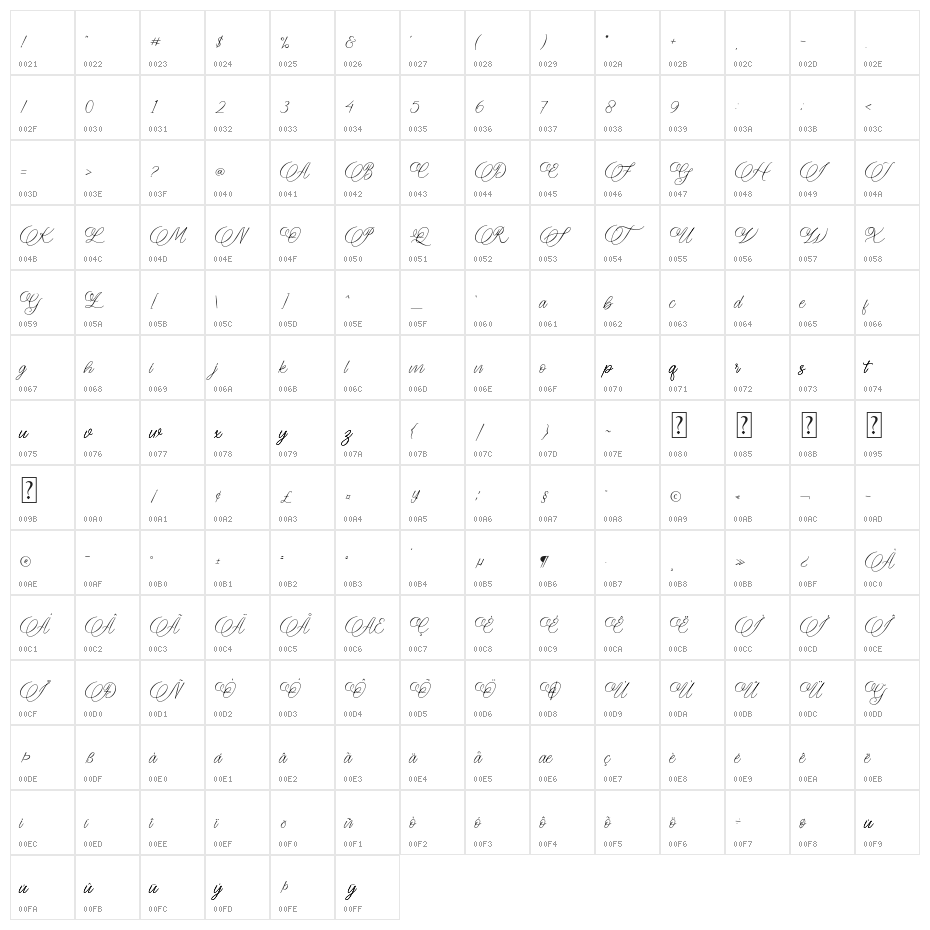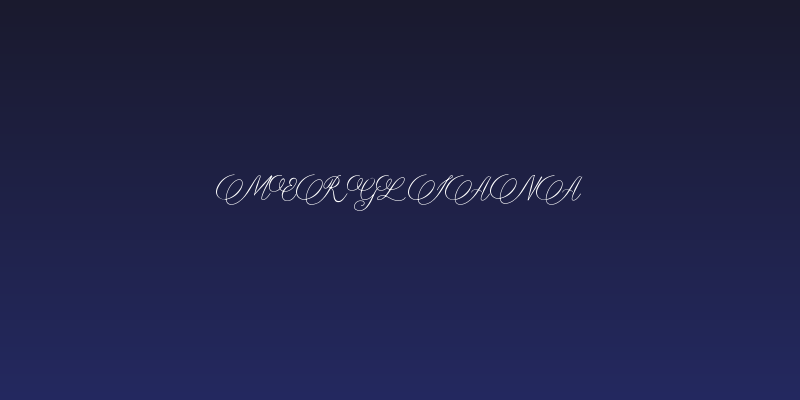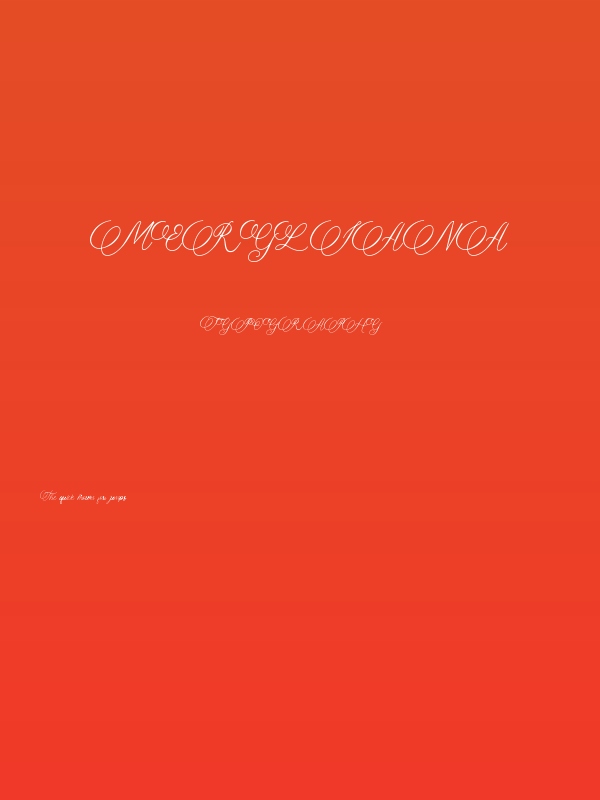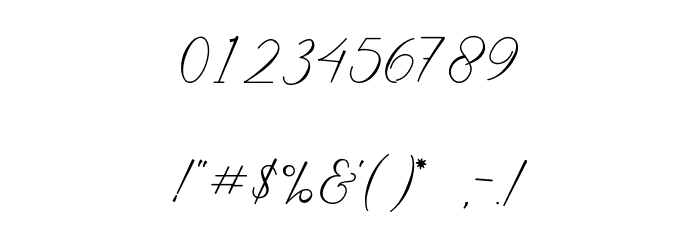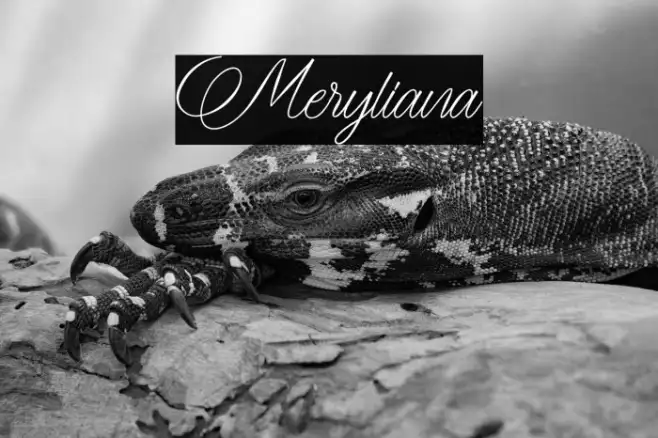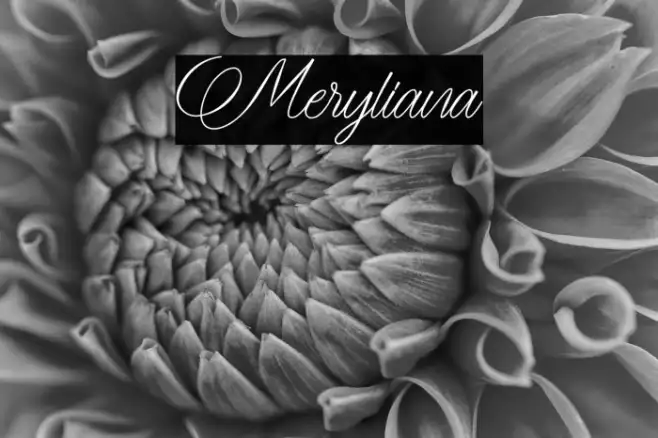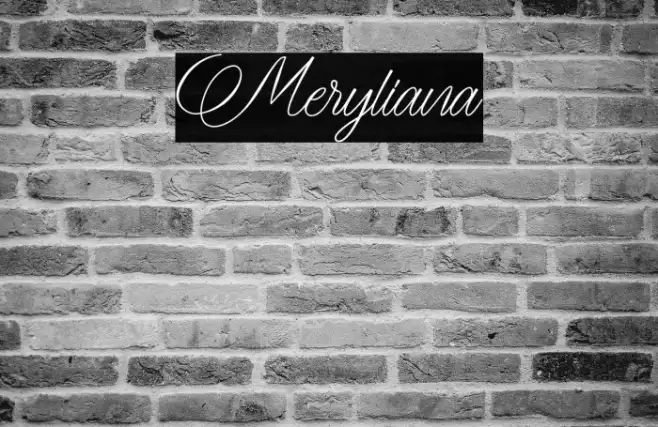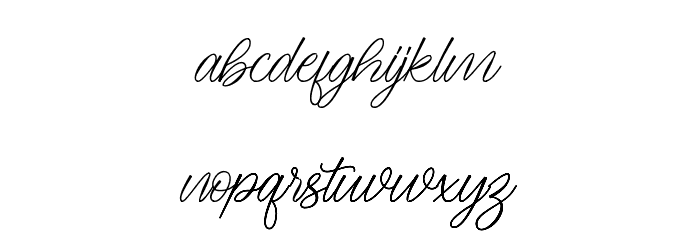
Meryliana Font
Meryliana Description
This elegant script font features flowing, interconnected letters that exude a sense of sophistication and grace. The uppercase letters are particularly ornate, with intricate loops and swirls that add a decorative flair. The lowercase letters maintain a consistent style, with smooth curves and a slight slant that enhances readability. The numerals and special characters are designed to match the overall aesthetic, ensuring a cohesive look across all text. This font is perfect for projects that require a touch of elegance and class, such as wedding invitations, formal event programs, or luxury branding.
| Proposed Projects | Ideal for wedding invitations, luxury branding, formal event programs, and elegant stationery. |